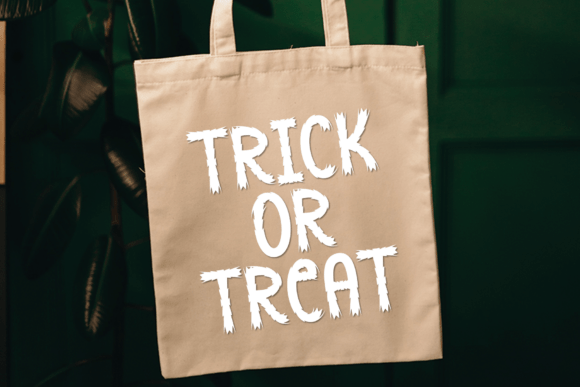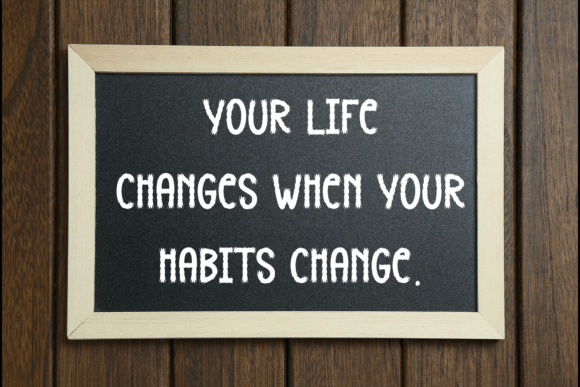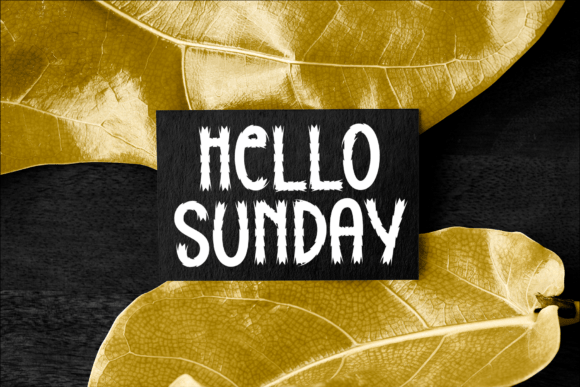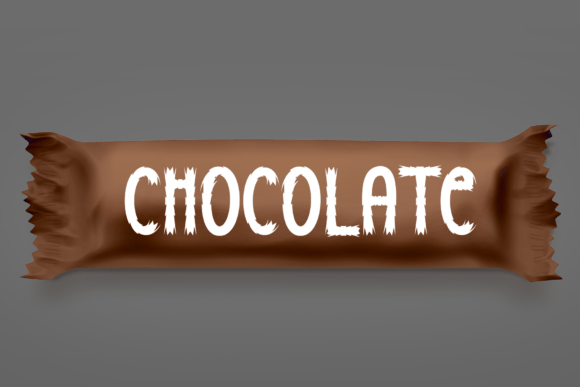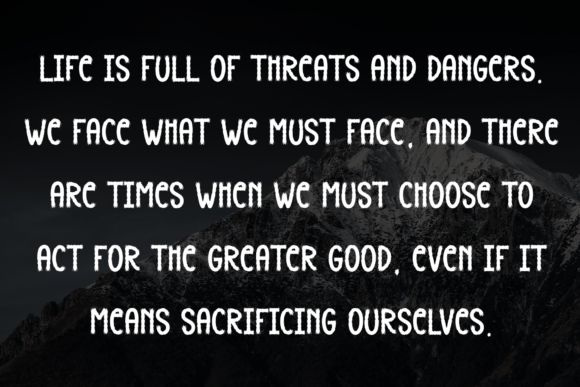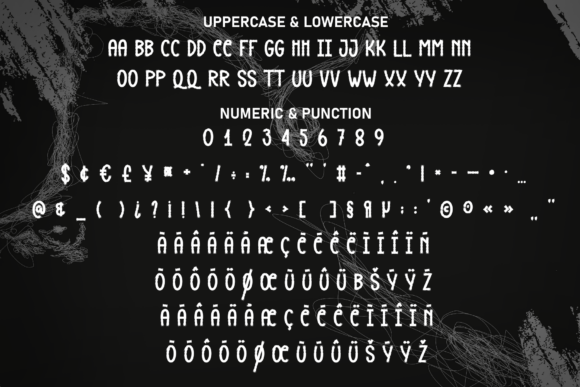
Unleashing Your Creativity with Brush Haunted Font
Have you ever found yourself staring at a blank canvas, waiting for the perfect spark to ignite your creativity? It’s a feeling we’re all too familiar with, but what if I told you that there’s a way to tap into that creative energy and bring your ideas to life? Introducing the Brush Haunted Font, a unique and captivating typographic experience designed to elevate your designs and leave a lasting impression.
As a designer, you understand the importance of choosing the right font to convey your message and capture your audience’s attention. The Brush Haunted Font is specifically crafted to add a touch of elegance and sophistication to your projects, whether it’s a wedding invitation, a social media post, or a product packaging design. With its versatility and wide range of applications, this font is a valuable addition to any designer’s toolkit.
Key Features of Brush Haunted Font
- Unique Characteristics: Features a distressed, haunted aesthetic with brush-like strokes and subtle texture, adding a spooky or eerie feel to text
- Style Options: Includes 6 different styles, each with its own unique characteristics and nuances, allowing for a range of design possibilities
Designer Review: Brush Haunted Font
Overall, I think Brush Haunted Font is a solid choice for designers looking to add a touch of whimsy and personality to their projects. ✨ The font’s hand-drawn feel and subtle imperfections give it a unique charm that can really make text stand out.
Some of the things I think work particularly well with Brush Haunted Font include:
- Its versatility: Brush Haunted Font can work well for a wide range of projects, from invitations and social media graphics to editorial content and even advertising.
- Its emotional resonance: The font’s playful, handwritten feel can evoke feelings of nostalgia and warmth, making it a great choice for projects that need to connect with an audience on an emotional level.
- Its flexibility: Brush Haunted Font comes in a variety of weights and styles, making it easy to customize to suit the needs of your project.
Of course, no font is perfect, and Brush Haunted Font is no exception. ⚠️ Some limitations I’ve noticed include:
- Lack of consistency: While the font’s imperfections can be charming, they can also be jarring if they’re not consistent throughout a project.
- Readability issues: In some cases, the font’s irregularities can make it difficult to read, particularly in large blocks of text.
Overall, I think Brush Haunted Font is a great addition to any designer’s toolkit, but it’s not without its limitations. With careful use and attention to detail, however, it can be a powerful tool for adding personality and charm to your projects.
Brush Haunted Font: A Practical Application Guide
For the most effective use of Brush Haunted Font, keep the following tips in mind:
- Use the font sparingly to create a spooky or eerie atmosphere.
- Pair the font with bold, contrasting colors to make it stand out.
Brush Haunted Font is ideal for:
- Spooky or horror-themed designs.
- Creepy or eerie presentations.
- Ghostly or supernatural graphics.
Alternatives to Brush Haunted Font
Great Vibes is a beautiful, handwritten font perfect for creating a relaxed and friendly atmosphere. It’s ideal for use in invitations, quotes, and other design elements where a casual tone is desired.
Compared to Brush Haunted Font, Great Vibes has a more playful and organic feel, with a wider range of letterforms and flourishes. While Brush Haunted Font has a darker, edgier aesthetic, Great Vibes is brighter and more whimsical.
Carolyna Pro is a elegant, modern script font that’s perfect for luxury brands and high-end designs. It’s ideal for use in logos, titles, and other design elements where sophistication and glamour are desired.